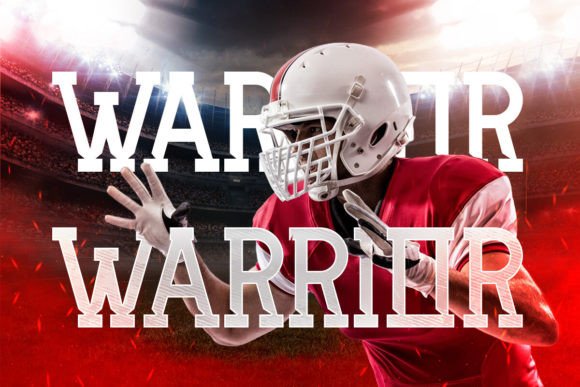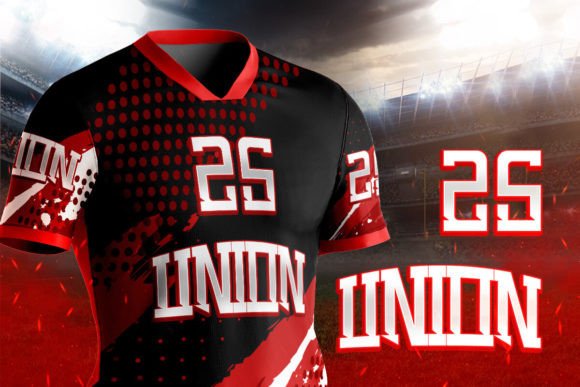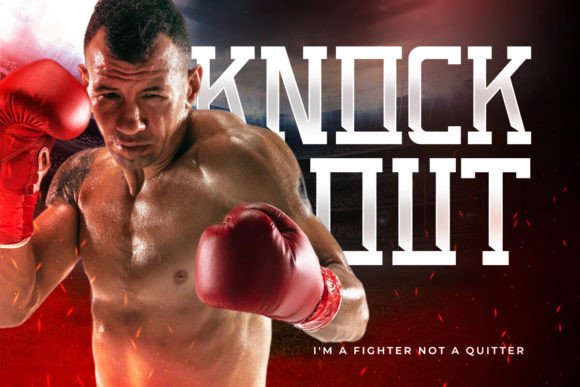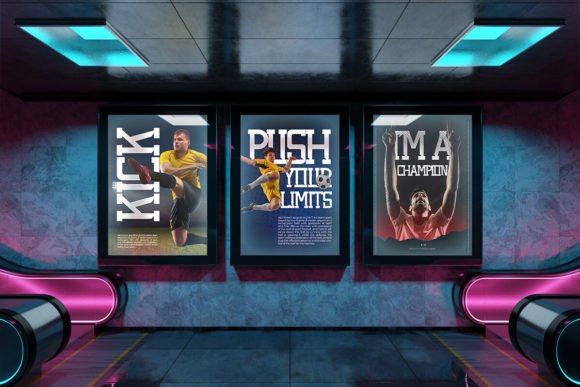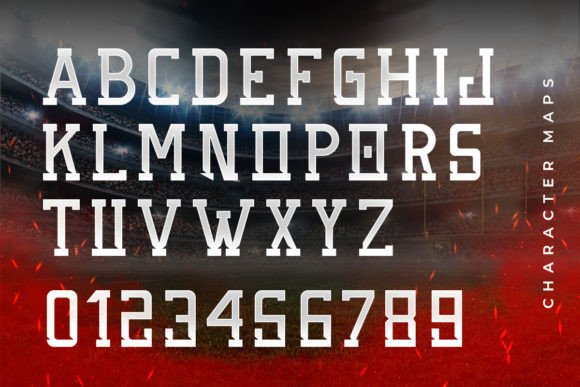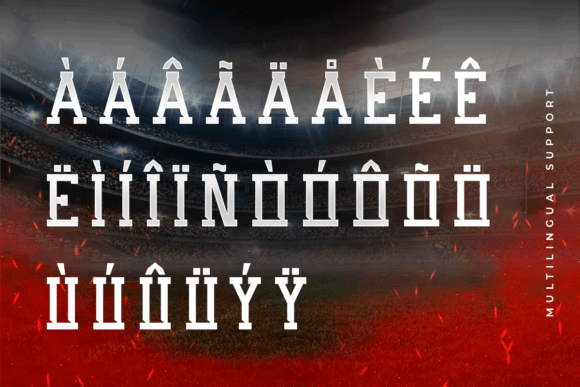
Unleash the Power of Champion Font: Elevate Your Sports Designs with Strength and Excellence
In the world of design, fonts play a crucial role in conveying the message and tone of a project. For sports-related designs, a font that exudes strength, athleticism, and competitive spirit is essential. This is where Champion Font comes in – a powerful and commanding display font designed to capture the essence of sports and competition. With its strong, bold letterforms and dynamic presence, Champion Font is the perfect choice for designers and crafters looking to create stunning sports designs.
The Perfect Font for Sports Designs
Champion Font is specifically designed for sports-related projects, including team logos, event posters, and sports apparel. Its impactful design and clear readability make it ideal for headlines, banners, and branding that need to make a bold statement. Whether you’re designing a logo for a professional sports team or creating a poster for a local sports event, Champion Font is the perfect choice.
One of the key features of Champion Font is its strong, bold letterforms. Each letter is carefully crafted to convey a sense of strength and athleticism, making it perfect for sports designs. The font’s dynamic presence is sure to grab attention and leave a lasting impression on your audience.
Key Features of Champion Font
- Powerful and Commanding Design: Champion Font features strong, bold letterforms with a dynamic presence that is sure to grab attention.
- Perfect for Sports Designs: This font is specifically designed for sports-related projects, including team logos, event posters, and sports apparel.
- Impactful Design and Clear Readability: Champion Font’s design is both impactful and clear, making it ideal for headlines, banners, and branding.
Why Choose Champion Font?
There are many fonts available that claim to be suitable for sports designs, but Champion Font stands out from the rest. Here are just a few reasons why:
- Unique and Exclusive Design: Champion Font has a unique and exclusive design that is sure to make your sports designs stand out.
- Excellent Readability: Champion Font’s clear readability ensures that your message is conveyed effectively, even at large sizes.
- Professional and Competitive Edge: With Champion Font, you can give your sports designs a professional and competitive edge that sets them apart from the rest.
How to Use Champion Font in Your Designs
Using Champion Font in your designs is easy. Here are a few tips to get you started:
- Pair with Other Fonts: Champion Font pairs well with other fonts, making it easy to create stunning contrast and visual interest in your designs.
- Experiment with Colors: The font’s bold design looks great in a variety of colors, so don’t be afraid to experiment and find the perfect color scheme for your design.
- Use for Headlines and Banners: Champion Font is perfect for headlines and banners, where its impactful design and clear readability can make a big impact.
In conclusion, Champion Font is a powerful and commanding display font that is perfect for sports-related designs. With its strong, bold letterforms and dynamic presence, this font is sure to elevate your sports designs and convey a sense of strength and excellence. Whether you’re a designer or crafter, Champion Font is a great choice for anyone looking to create stunning sports designs.